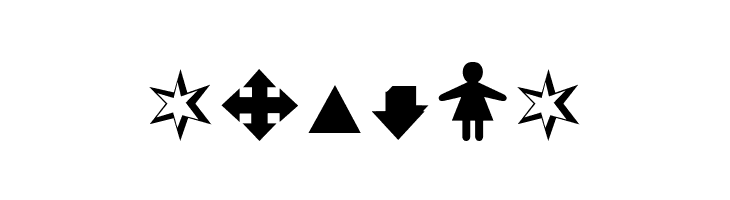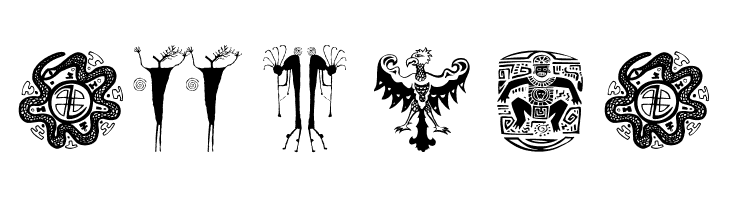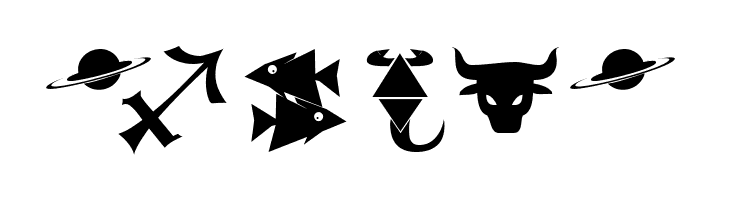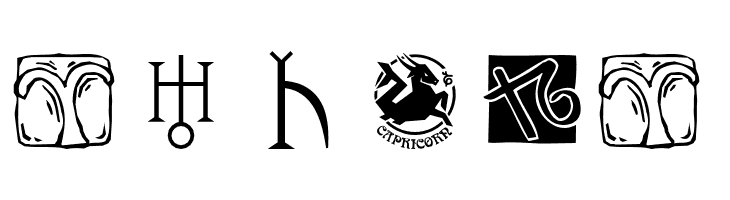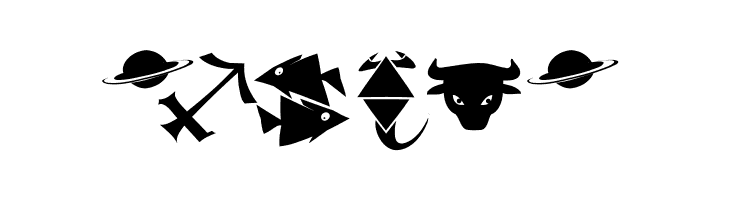
A decorative collection of geometric and abstract symbols with a kaleidoscopic effect.
A bold pictogram dingbat font featuring diverse icons and symbols.
An illustrative font merging peace symbols with weaponry for visual storytelling.
A decorative set of culturally inspired symbols with intricate designs.
A decorative set of astrological and astronomical symbols with a modern twist.
A decorative set of astrological and planetary symbols with intricate designs.
A decorative font with astrological and celestial symbols, perfect for mystical and creative designs.